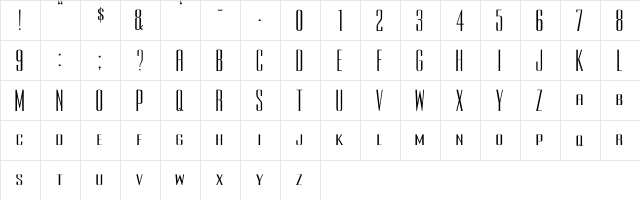
Rothman Ex Regular Font Preview
Rothman Ex Regular
Design Context for Rothman Ex Typeface
Rothman Ex is a composed and adaptable typeface that performs quietly and consistently across a wide range of design contexts.